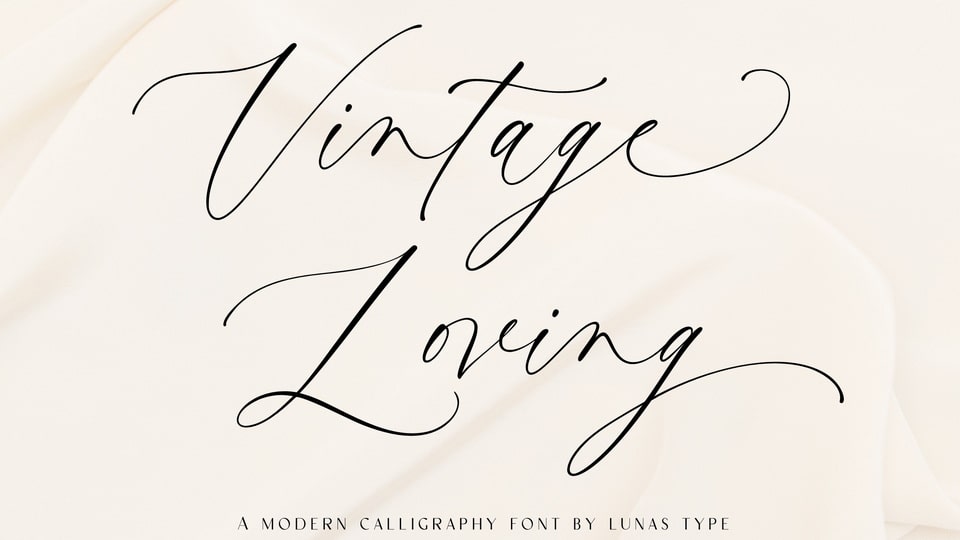
Download Vintage Loving font, a luxury calligraphy typeface. Vintage Loving has chic and natural curves to add charm impression for your design.
Designer: Lunas Type